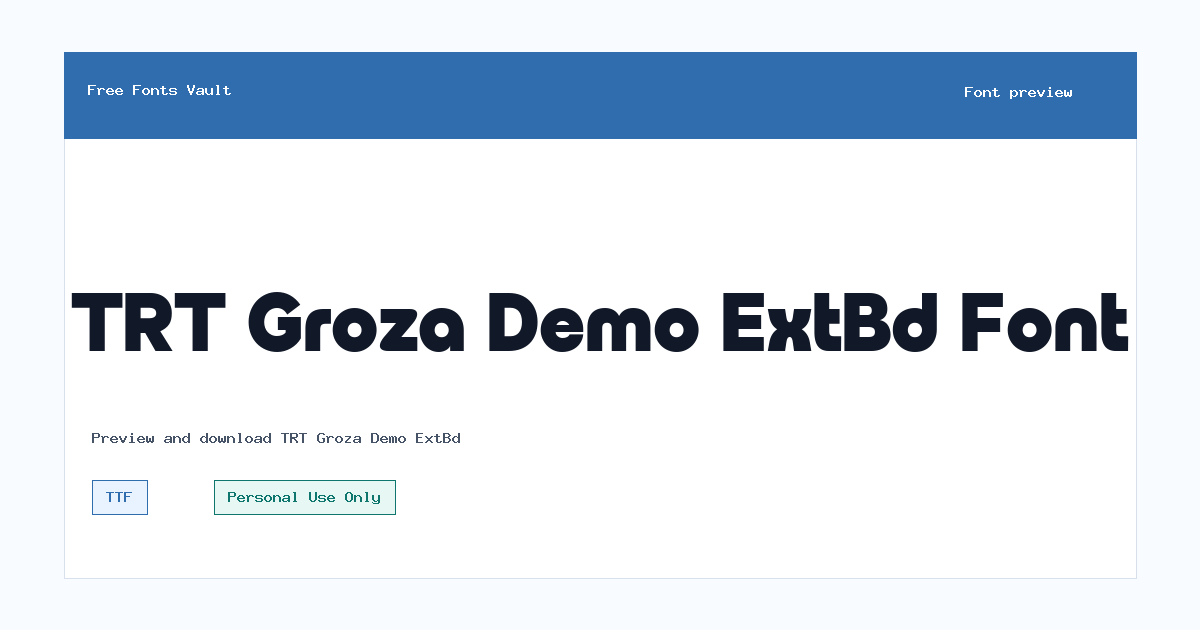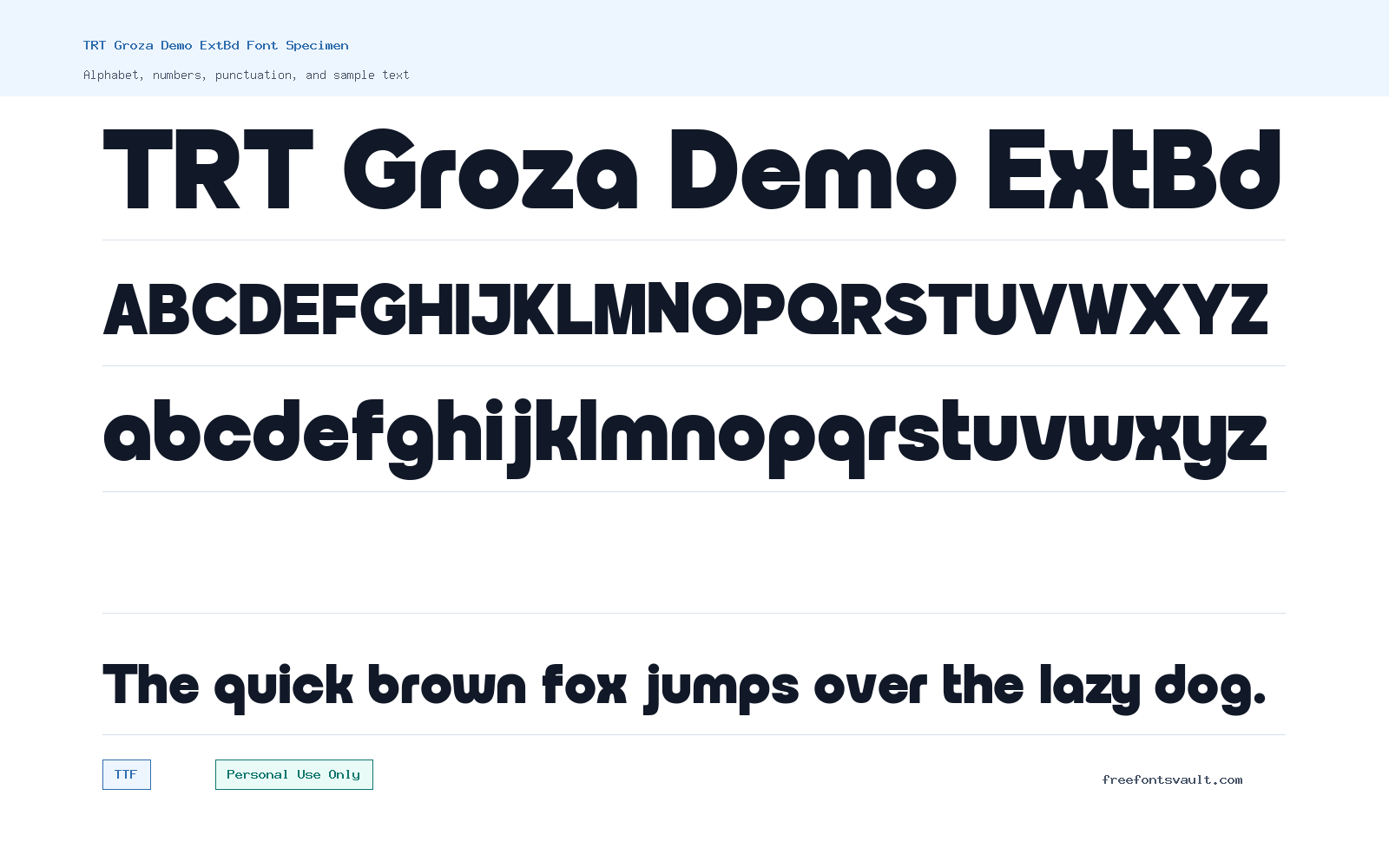
TRT Groza Demo ExtBd
- Designer Maheza Ferro Annas Jasmindar of Truetype
- Foundry Truetype
TRT Groza Demo ExtBd font.
TRT Groza Demo ExtBd is a heavy sans serif demo font made for strong, compact display text. Its ExtraBold weight gives short words and headlines a firm presence, making it useful when you want typography that feels direct without needing decorative effects.
About TRT Groza Demo ExtBd
TRT Groza Demo ExtBd is listed as part of the TRT Groza Sans Serif Font Family and comes in a TTF file format. The available style is a normal ExtraBold cut, so the main value is clear: large, weighty text with a clean sans serif structure. Use the preview box to test uppercase words, numbers, spacing, and mixed-case phrases before downloading, because bold demo fonts can look very different depending on the length of the text.
- ExtraBold sans serif style suited to headlines and short display text
- Posters, thumbnails, banners, and social media title graphics
- Personal design mockups, bold headings, and short brand-style text tests
TRT Groza Demo ExtBd is credited to Maheza Ferro Annas Jasmindar of Truetype, with Truetype listed as the foundry.
What type of font is TRT Groza Demo ExtBd?
It is a bold sans serif demo font. The available file is an ExtraBold TTF style, which makes it better for headlines and display text than long paragraphs.
Who designed TRT Groza Demo ExtBd?
The font is credited to Maheza Ferro Annas Jasmindar of Truetype.